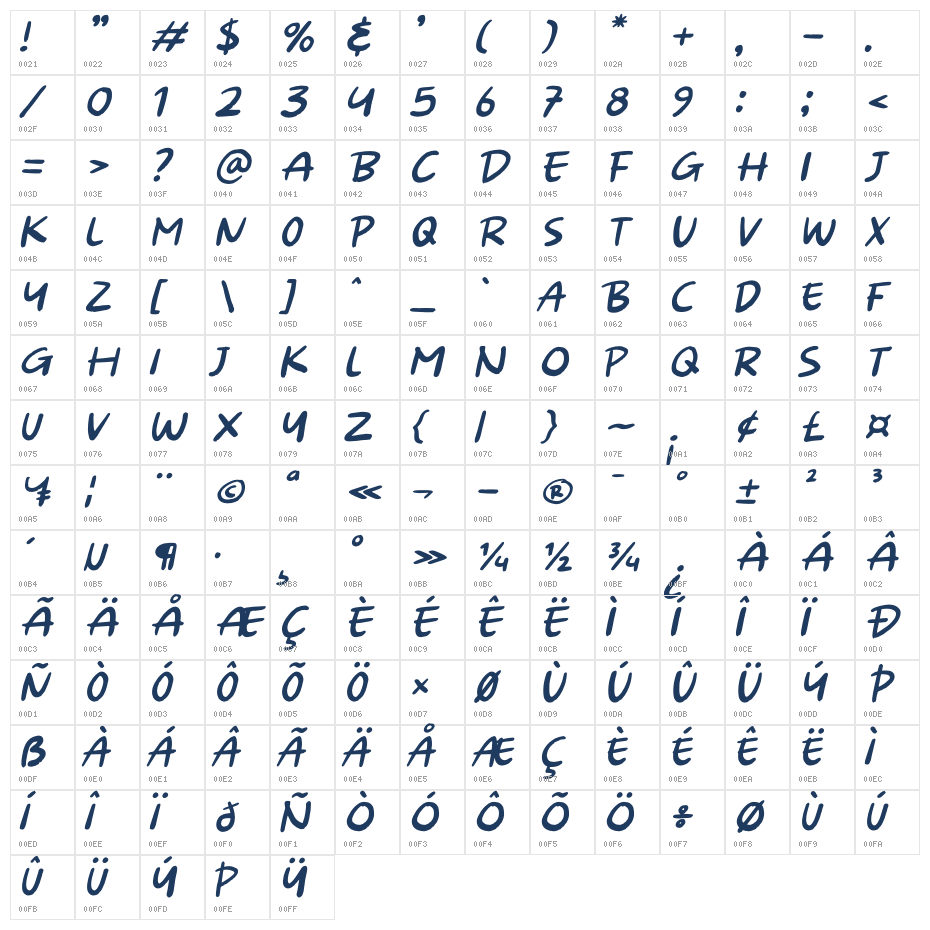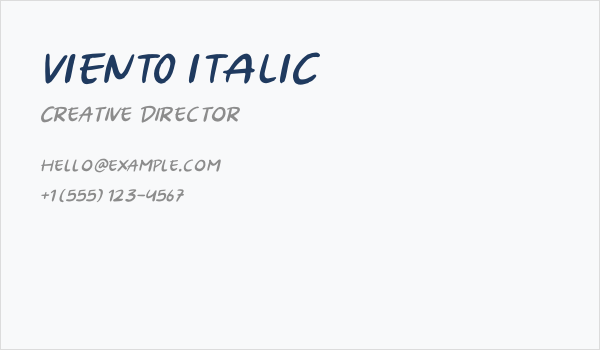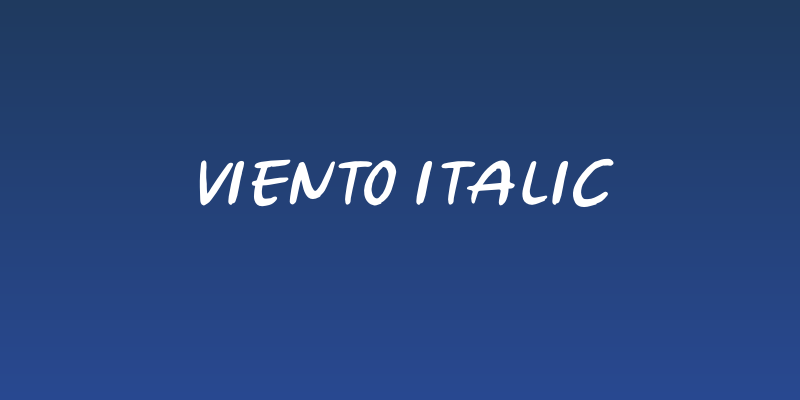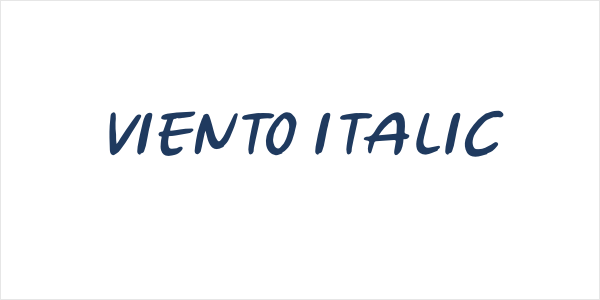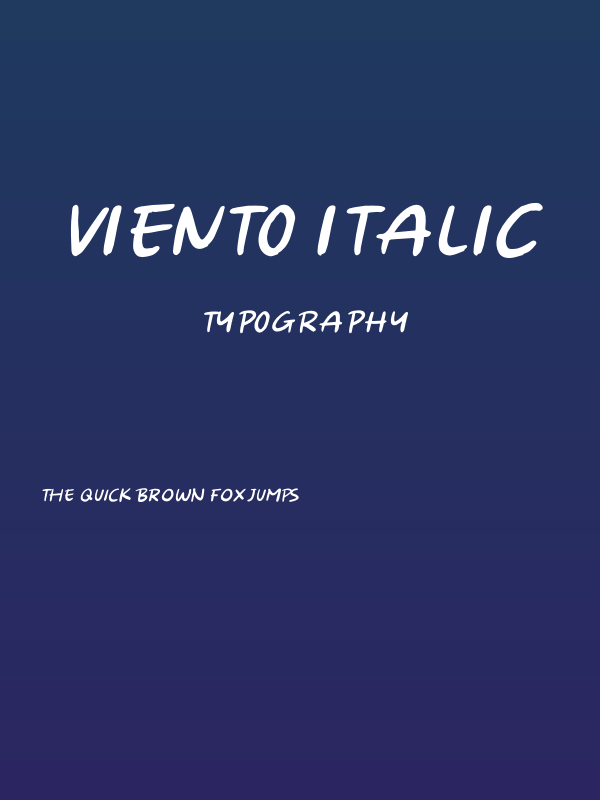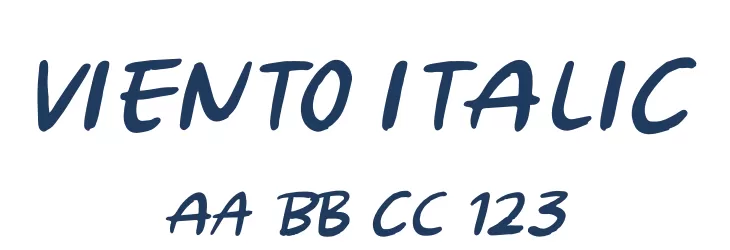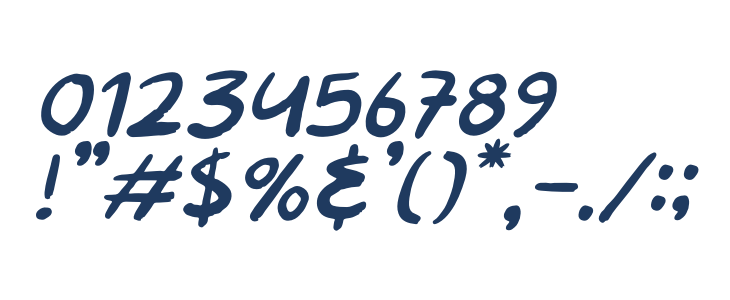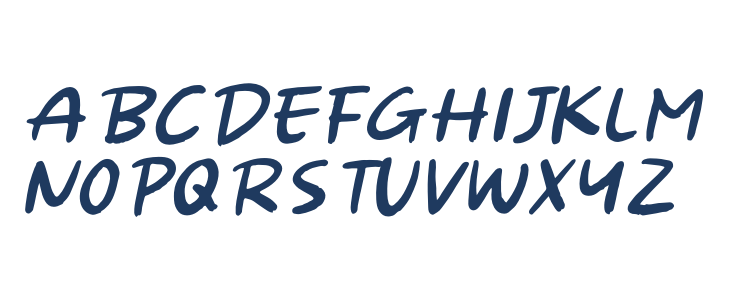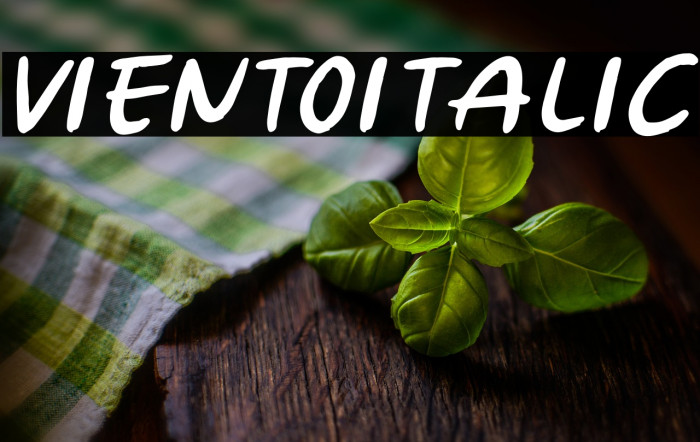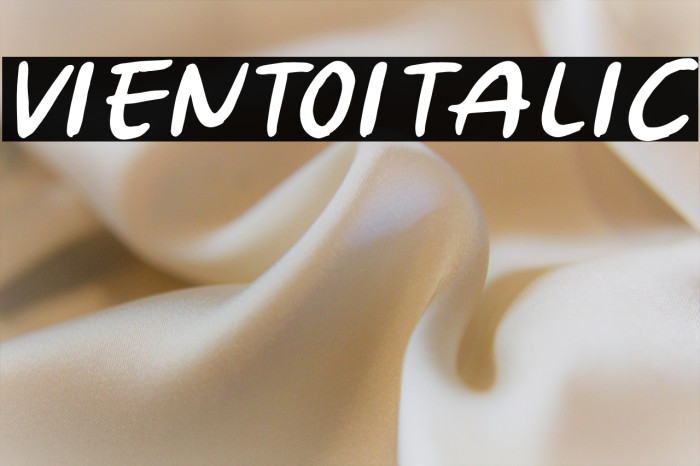
VIENTO ITALIC Font
VIENTO ITALIC Description
A casual, handwritten script font with a slightly slanted, brush-like appearance.
| Overall Style | Casual, Handwritten, Brush |
| Use Case | Logos, Branding, Invitations, Social Media Graphics |